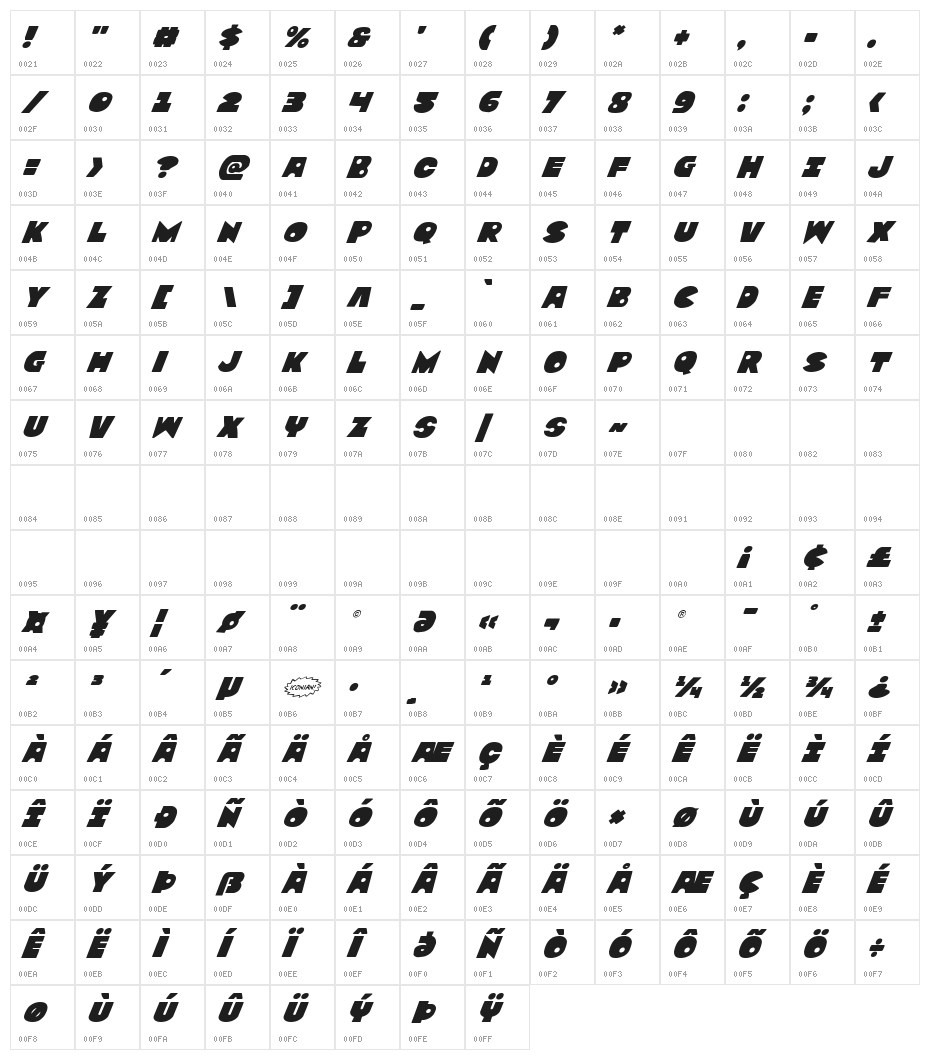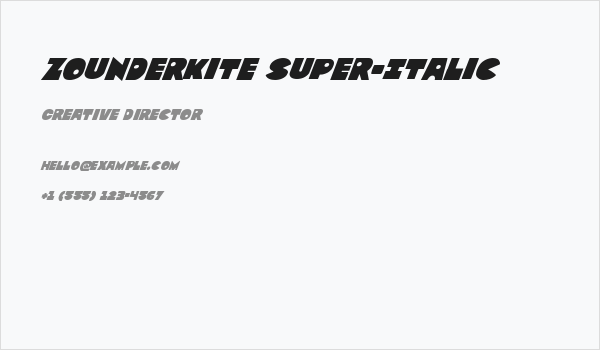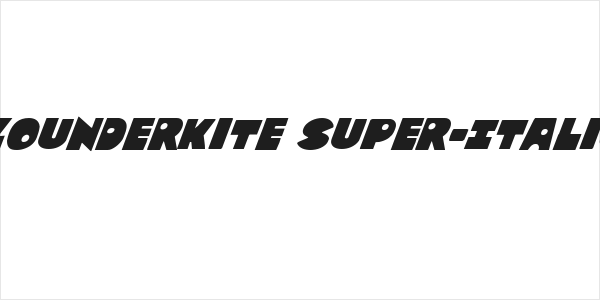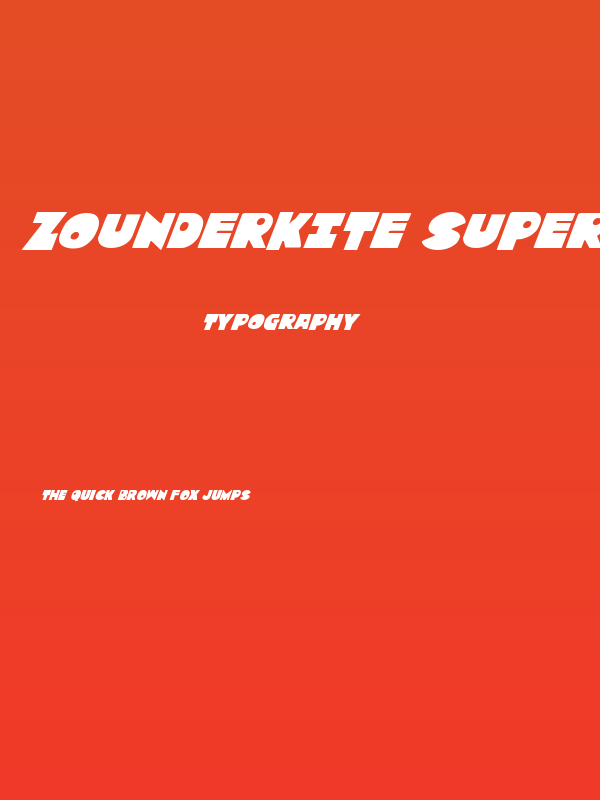
This font features a bold and dynamic design with a strong italic slant, giving it a sense of motion and energy. The characters are thick and robust, with a distinct geometric style that includes sharp angles and clean lines. The uppercase and lowercase letters maintain a consistent style, while the numerals and special characters complement the overall aesthetic. The font's boldness and unique style make it stand out, suitable for projects that require a strong visual impact.
| Proposed Projects | Ideal for sports branding, dynamic posters, and eye-catching headlines. |